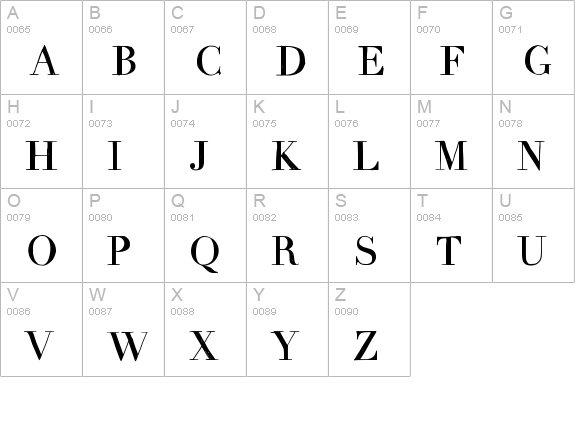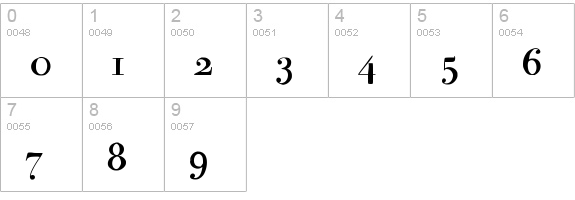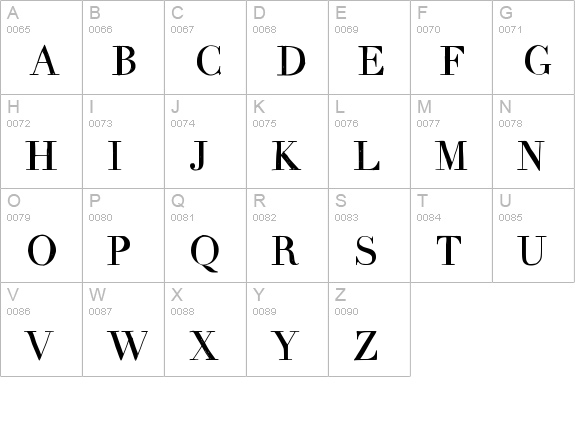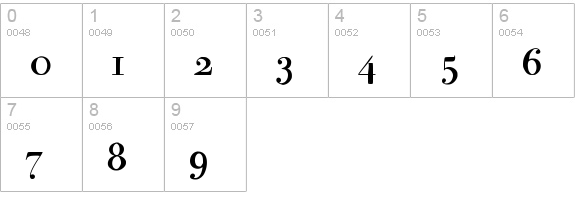
LindysDiner Font Details
Introducing LindysDiner, a captivating and versatile font that effortlessly transports you to the nostalgic ambiance of a classic American diner. With its bold yet playful design, LindysDiner captures the essence of retro signage, effortlessly blending vintage charm with a modern twist. This delightful font is perfect for a variety of creative projects, from eye-catching logos and catchy headlines to stylish packaging and captivating social media posts. Whether you're aiming for a fun and vibrant design or a more sophisticated and elegant look, LindysDiner has got you covered. But the best part? LindysDiner is absolutely free! Yes, you read that right. This remarkable font is freely available to download exclusively at FontsMarket.com, your go-to destination for high-quality and unique fonts. Embrace the freedom to elevate your designs without breaking the bank. With its wide range of characters, including uppercase letters, lowercase letters, numbers, punctuation marks, and special symbols, LindysDiner offers endless possibilities to unleash your creativity. Each letter is meticulously crafted to ensure smooth and seamless integration into your designs, guaranteeing a flawless and professional result every time. So why wait? Join the countless designers, artists, and creatives who have already fallen in love with LindysDiner. Download this remarkable font today from FontsMarket.com and embark on a journey of design excellence. With LindysDiner by your side, your projects will effortlessly capture attention and leave a lasting impression. Don't miss out on this incredible opportunity to add a touch of vintage charm to your designs, all while enjoying the freedom of a free font.